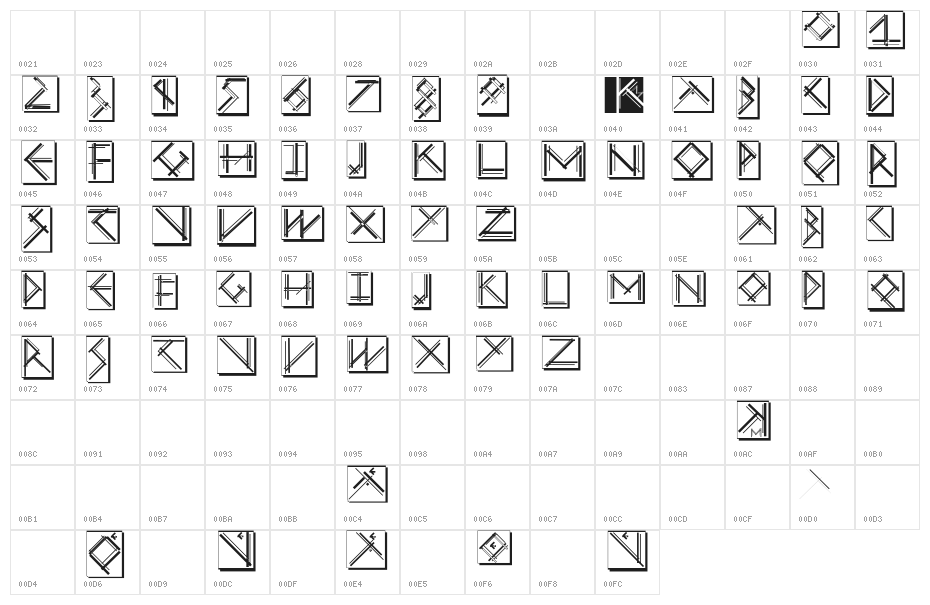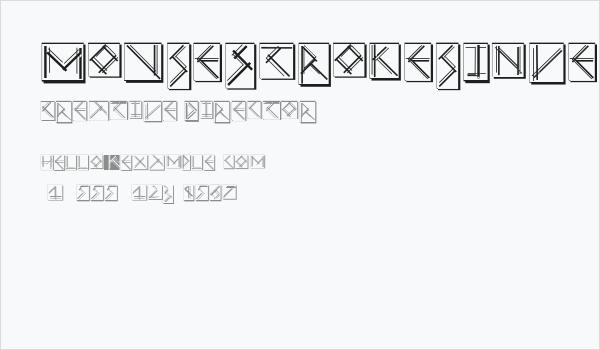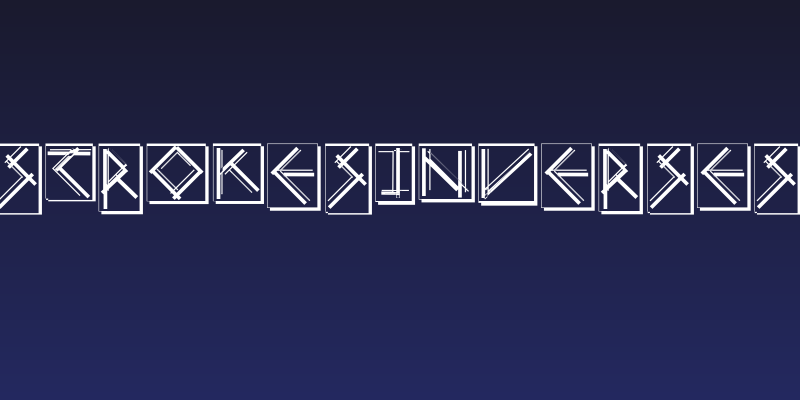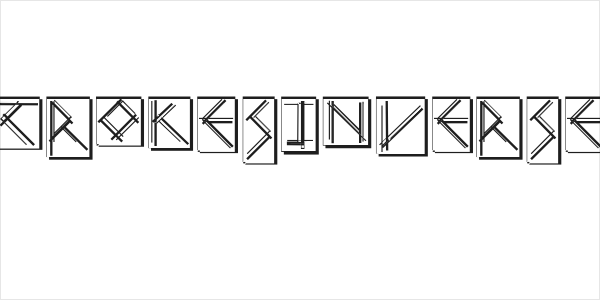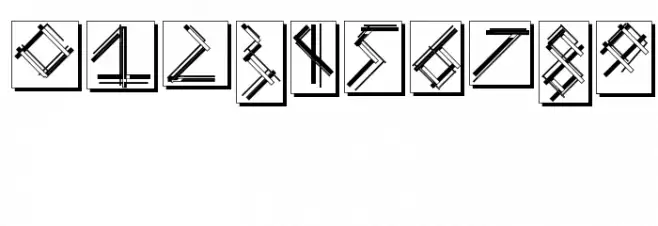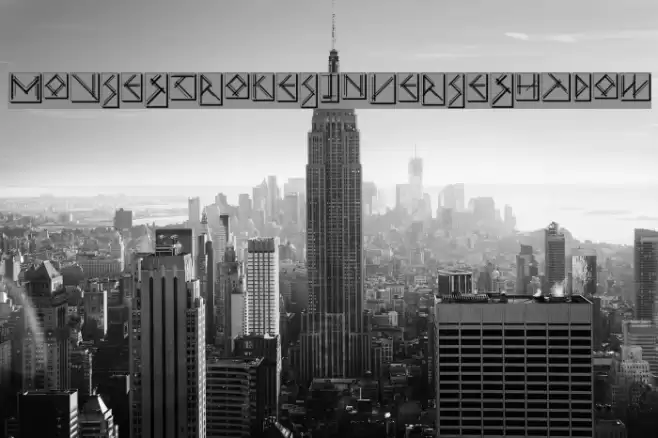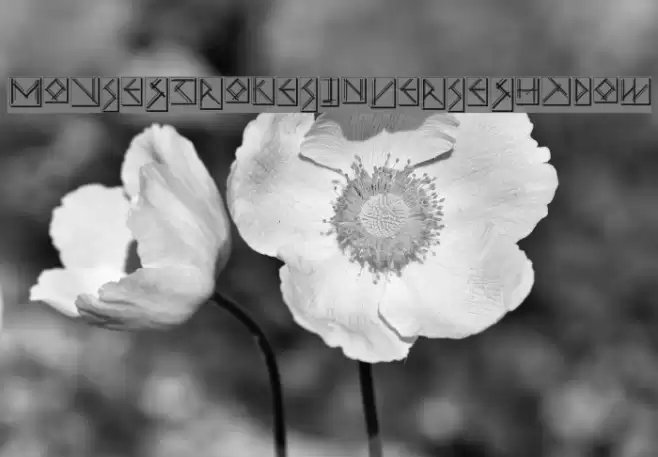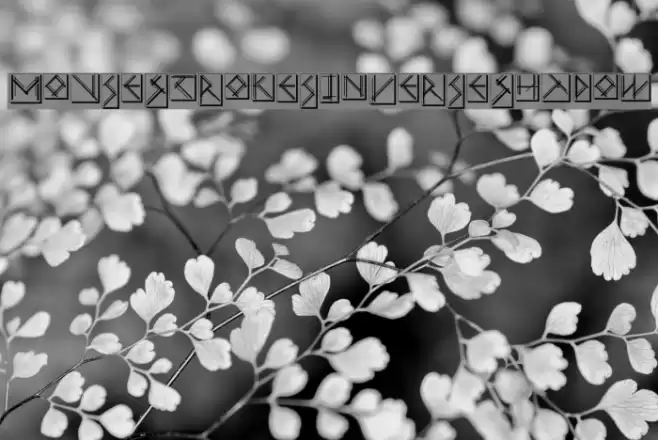
MouseStrokesInverseShadow Font
MouseStrokesInverseShadow Description
This font features a unique and modern design with an inverse shadow effect. Each character is enclosed within a square, creating a structured and geometric appearance. The lines are bold and angular, with a distinct shadow that adds depth and dimension. The uppercase and lowercase letters maintain a consistent style, while the numbers and special characters follow the same design principles. This font is visually striking and ideal for projects that require a contemporary and edgy look.
| Proposed Projects | Ideal for branding, posters, digital art, and any project that requires a modern and edgy aesthetic. |